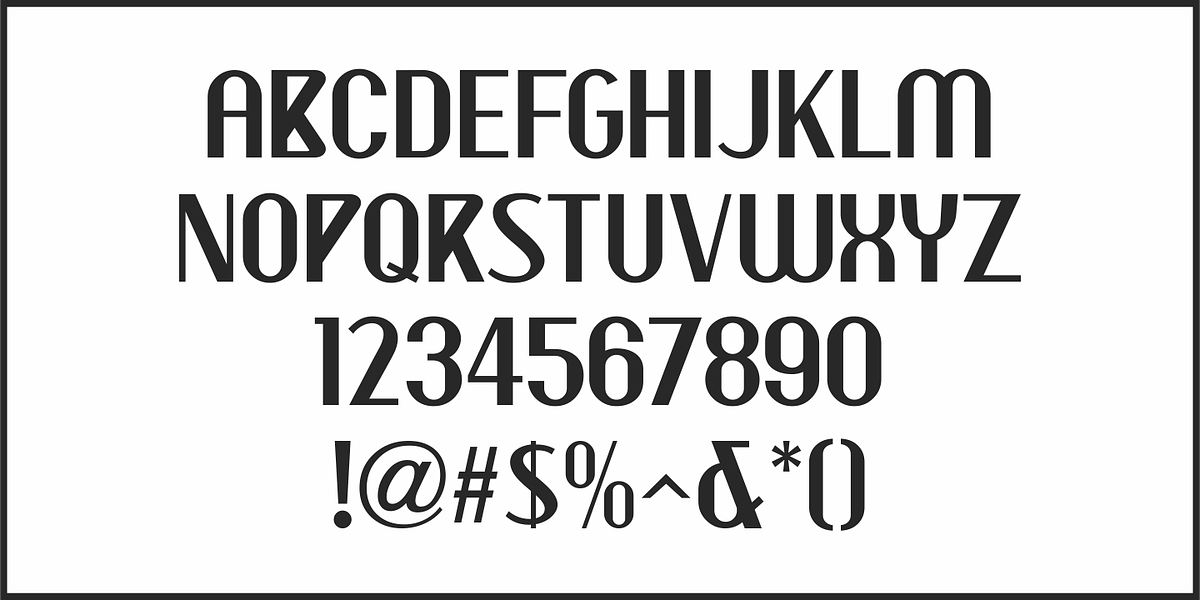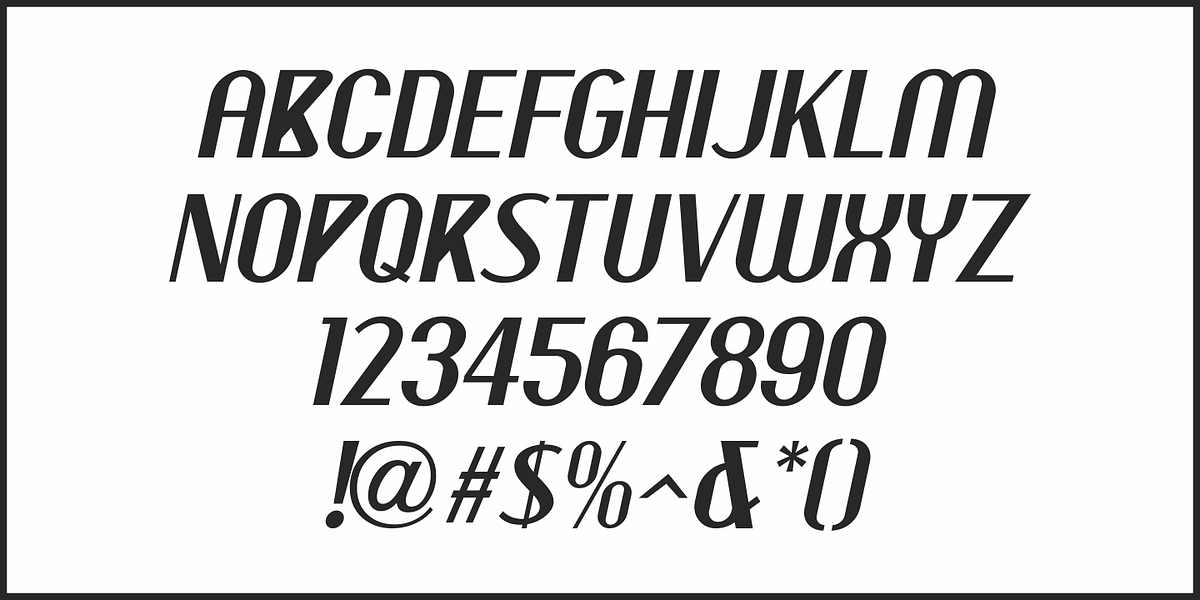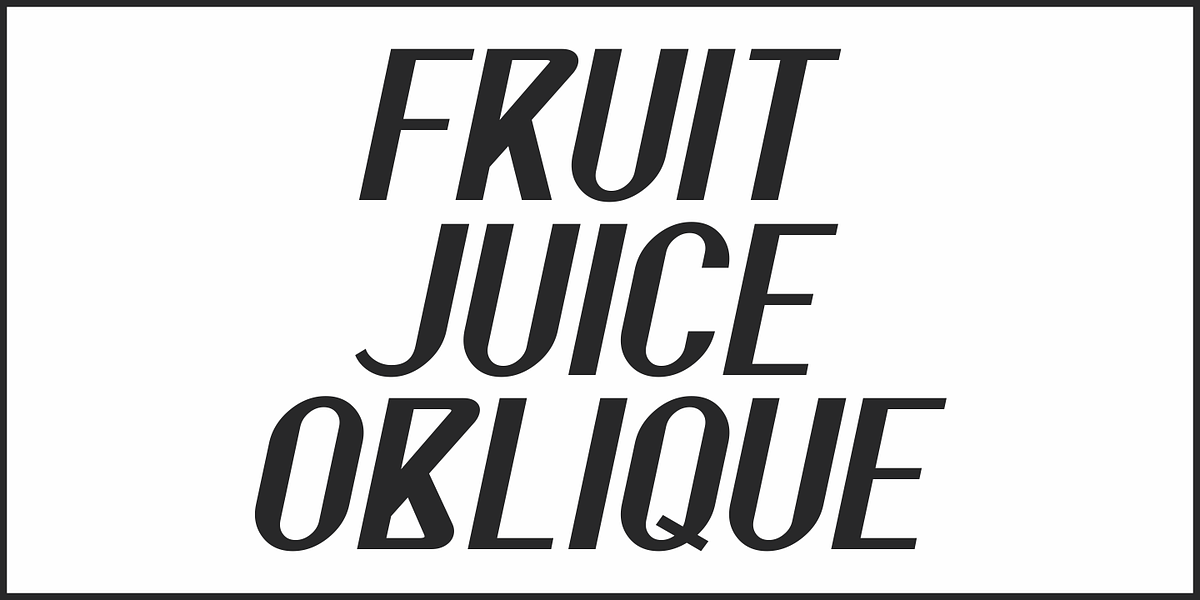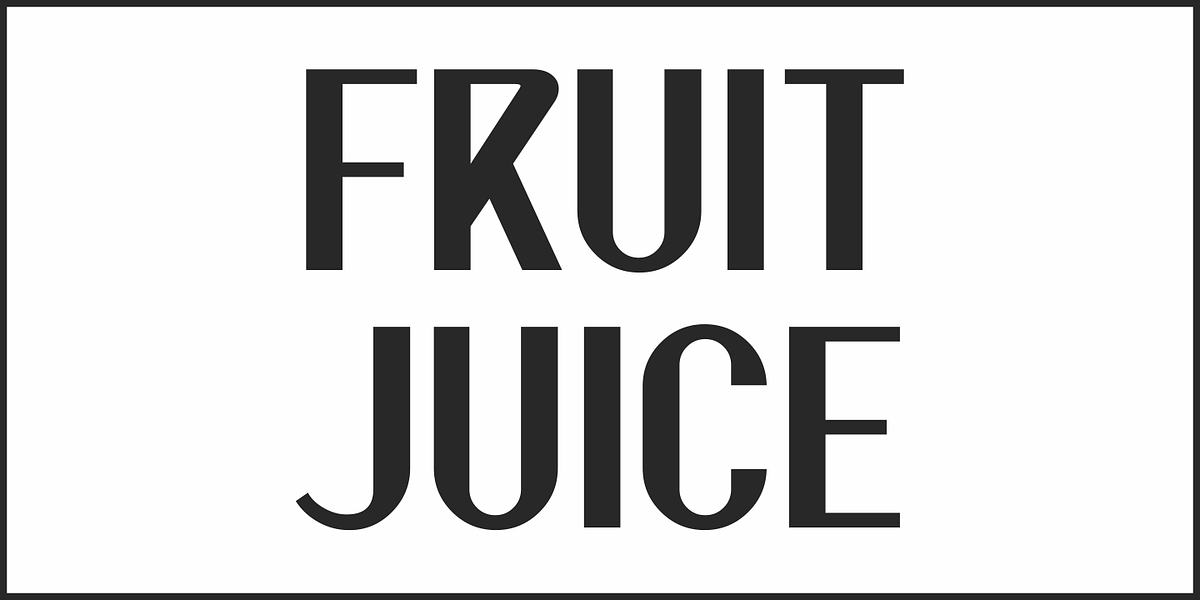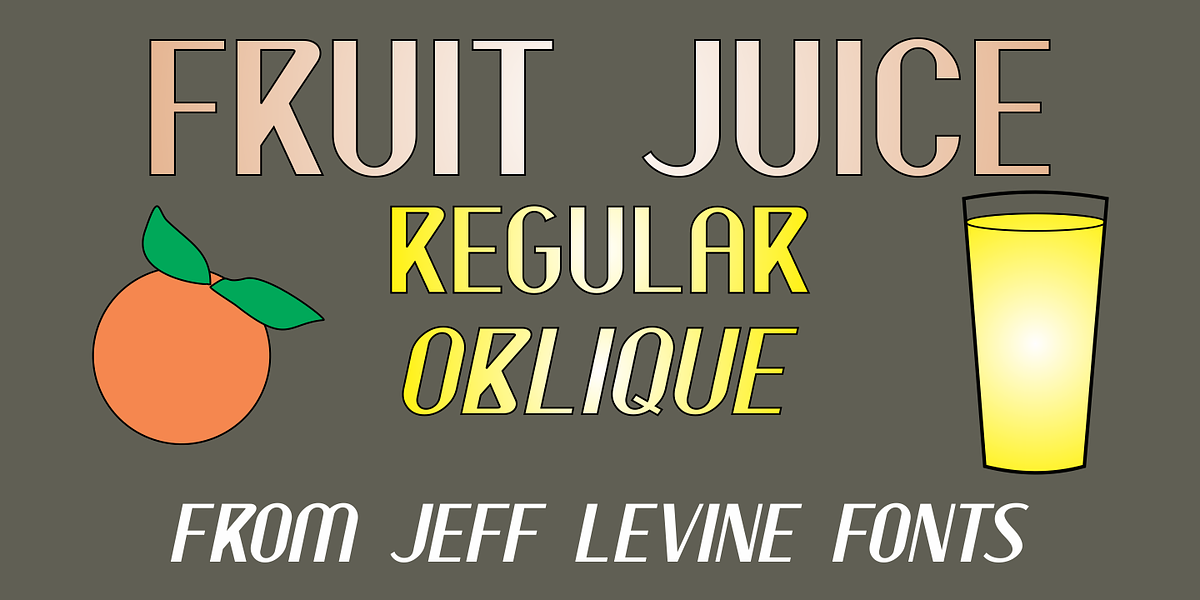
Fruit Juice JNL
A vintage New York neon sign for a juice stand advertising “Papaya” was the model and inspiration for Fruit Juice JNL, which is available in both regular and oblique versions.